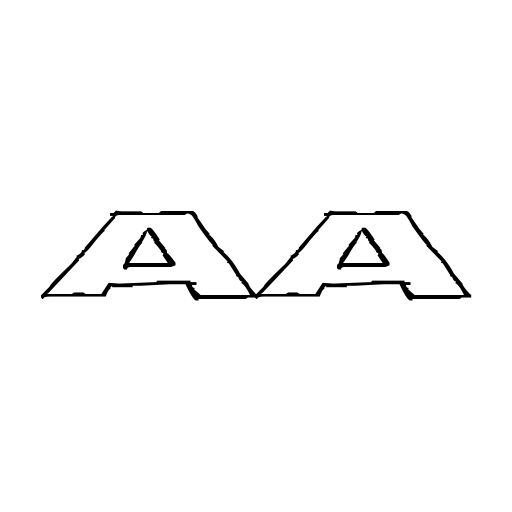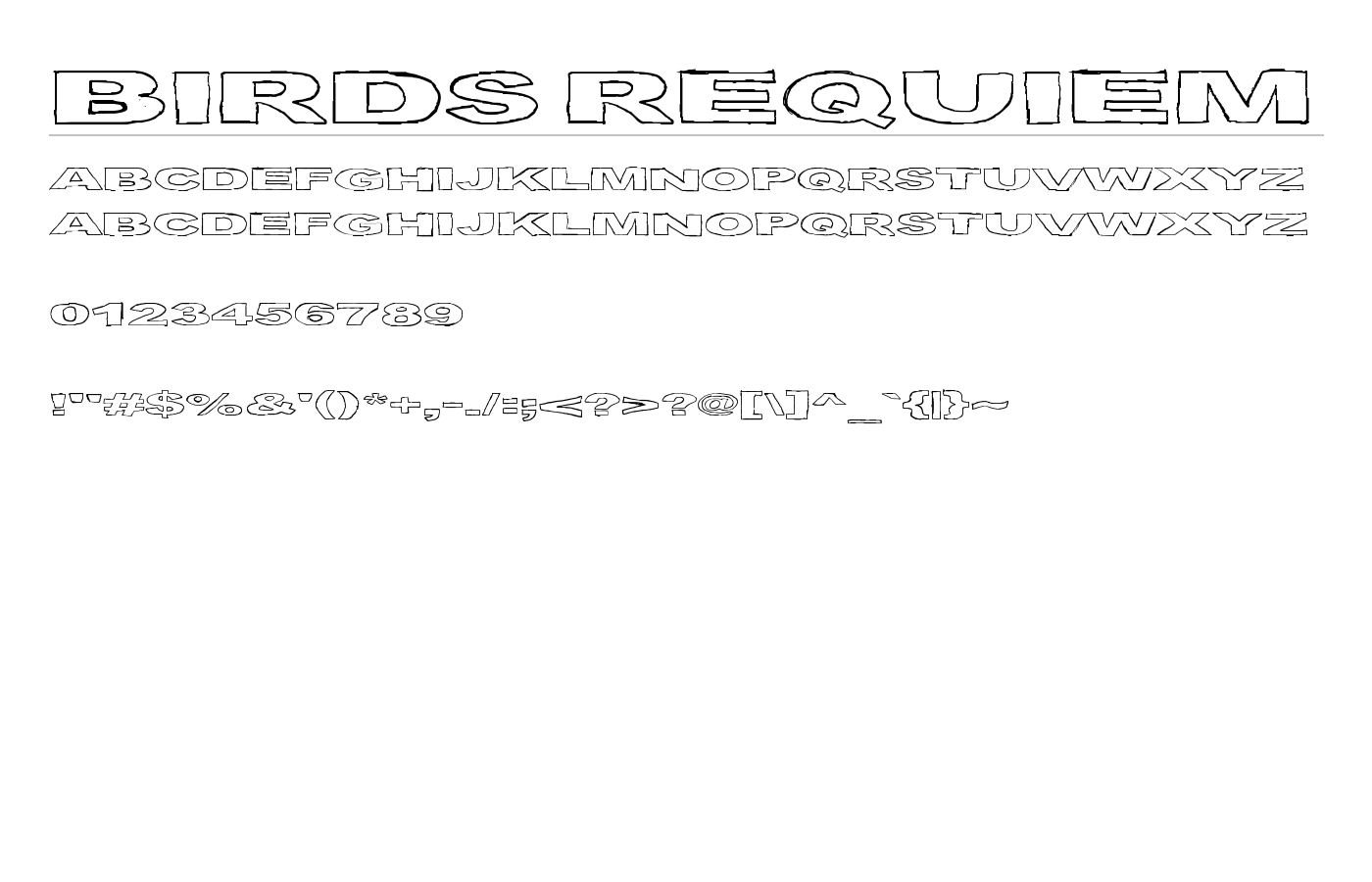
Birds Requiem is a bold, wide sans serif font with a distinctive outlined, slightly irregular stroke style that gives it a playful and artistic vibe. Its strong, geometric letterforms with subtle imperfections make it perfect for eye-catching headlines, posters, and branding that seeks a fun, creative, and unconventional look. This font works well where a bold, informal statement is needed, adding personality without sacrificing readability.
Birds Requiem Font
About Birds Requiem Font